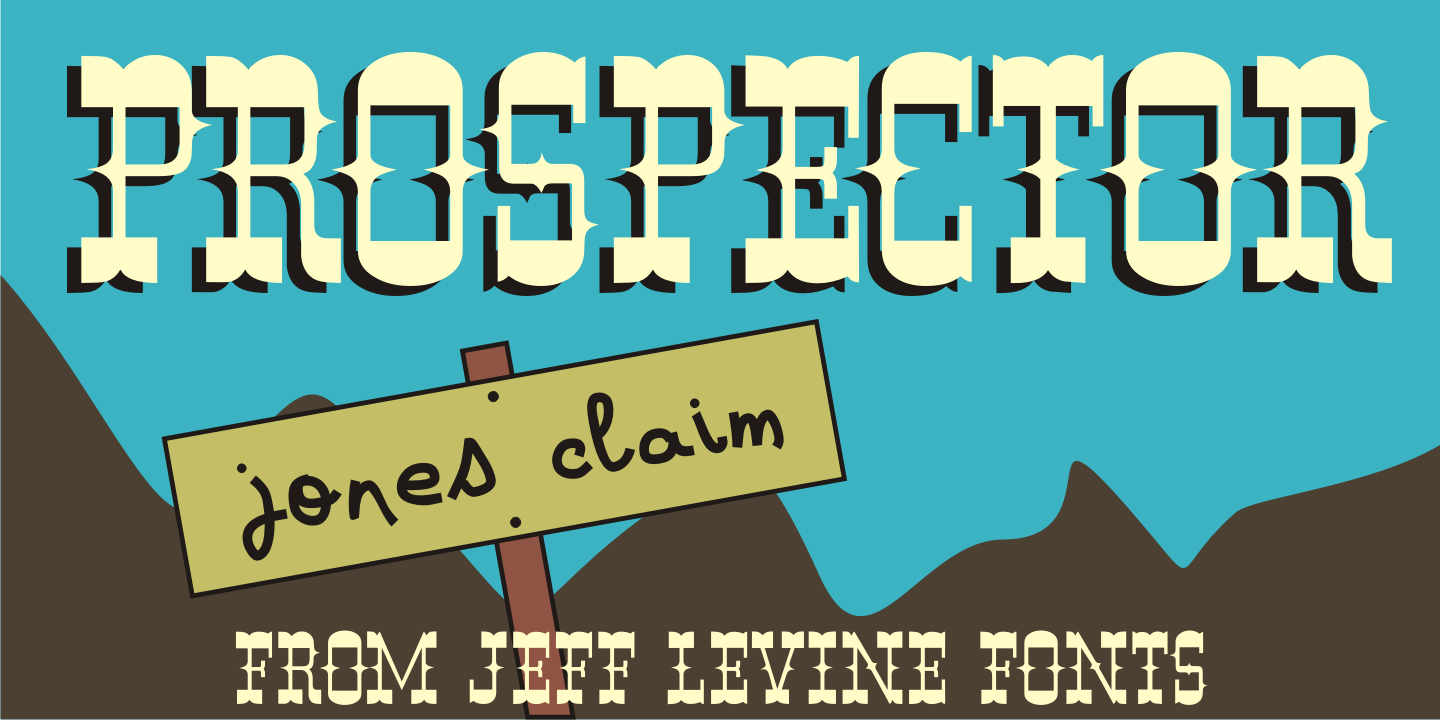
Looking to strike gold with a bold, old-west-inspired typeface? Prospector JNL Font Free Download brings the rugged charm of 19th-century frontier signage right to your digital doorstep. Perfect for western-themed posters, vintage branding, saloon-style menus, or rustic packaging, this font is designed to command attention and add authentic character.
Whether you're designing for a country festival, a BBQ restaurant, a retro product, or simply want to evoke a sense of adventure and Americana, Prospector JNL Font Free Download has the typographic grit to back up your vision. The font’s robust letters and vintage feel add both style and storytelling to your designs.